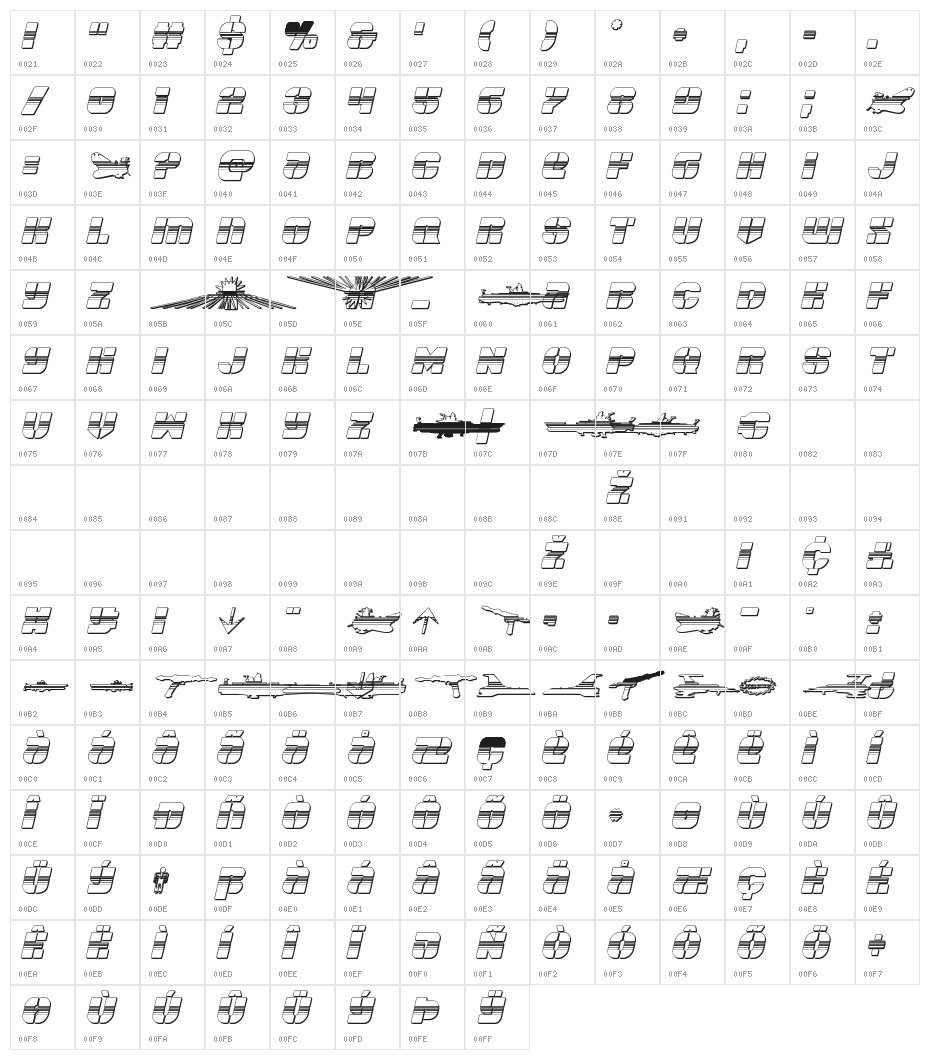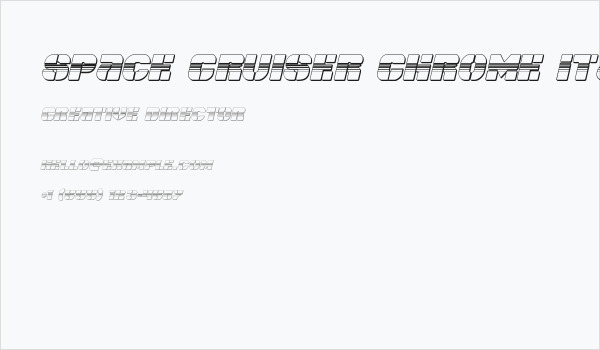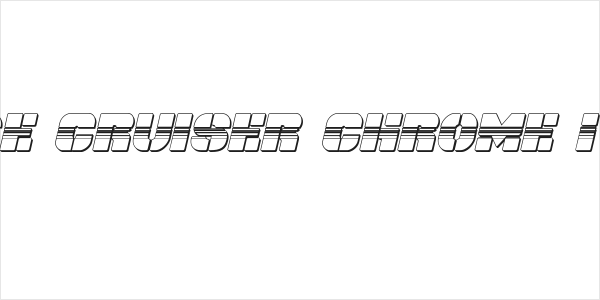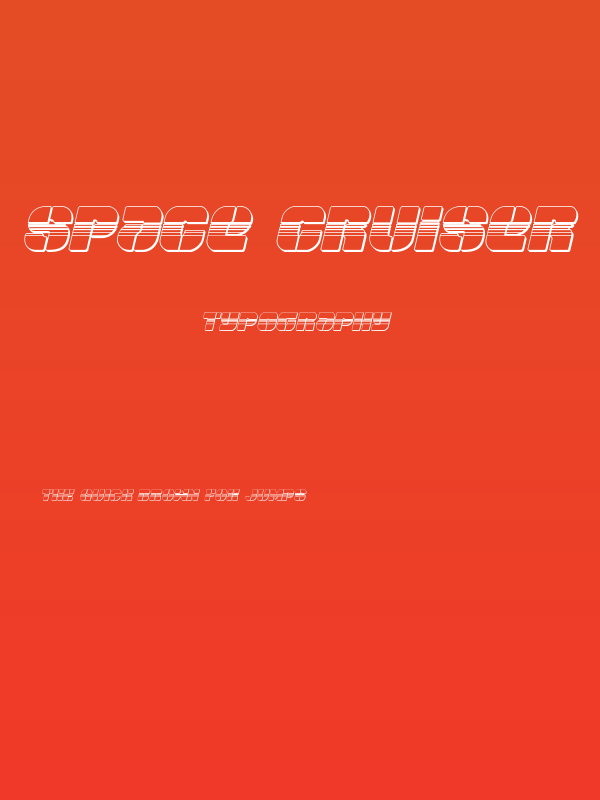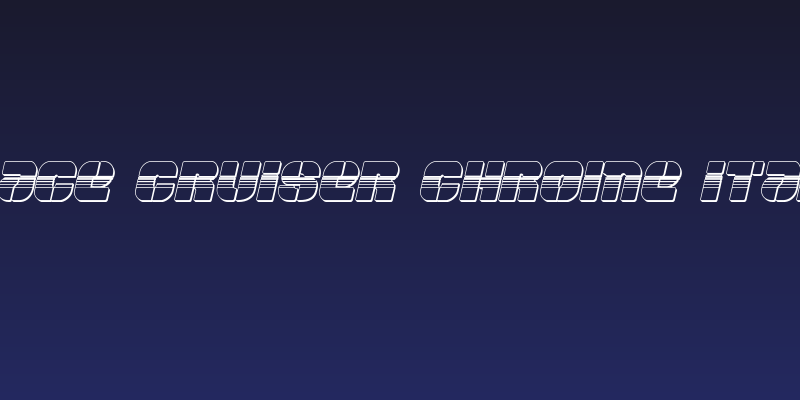
Space Cruiser Chrome Italic Font
Space Cruiser Chrome Italic Description
This font features a futuristic and bold design with a chrome-like appearance. The characters are italicized, giving them a dynamic and forward-moving feel. Each letter is constructed with a series of parallel lines, creating a layered effect that adds depth and dimension. The font has a distinct sci-fi aesthetic, reminiscent of retro-futuristic designs. The uppercase and lowercase letters maintain a consistent style, with rounded edges and a slightly condensed form. The numbers and special characters follow the same design principles, ensuring uniformity across all elements. This font is ideal for projects that require a modern and edgy look, such as technology branding, video game titles, or sci-fi movie posters.
| Overall Style | Futuristic, Retro-Futuristic |
| Proposed Projects | Ideal for technology branding, video game titles, sci-fi movie posters, and futuristic designs. |